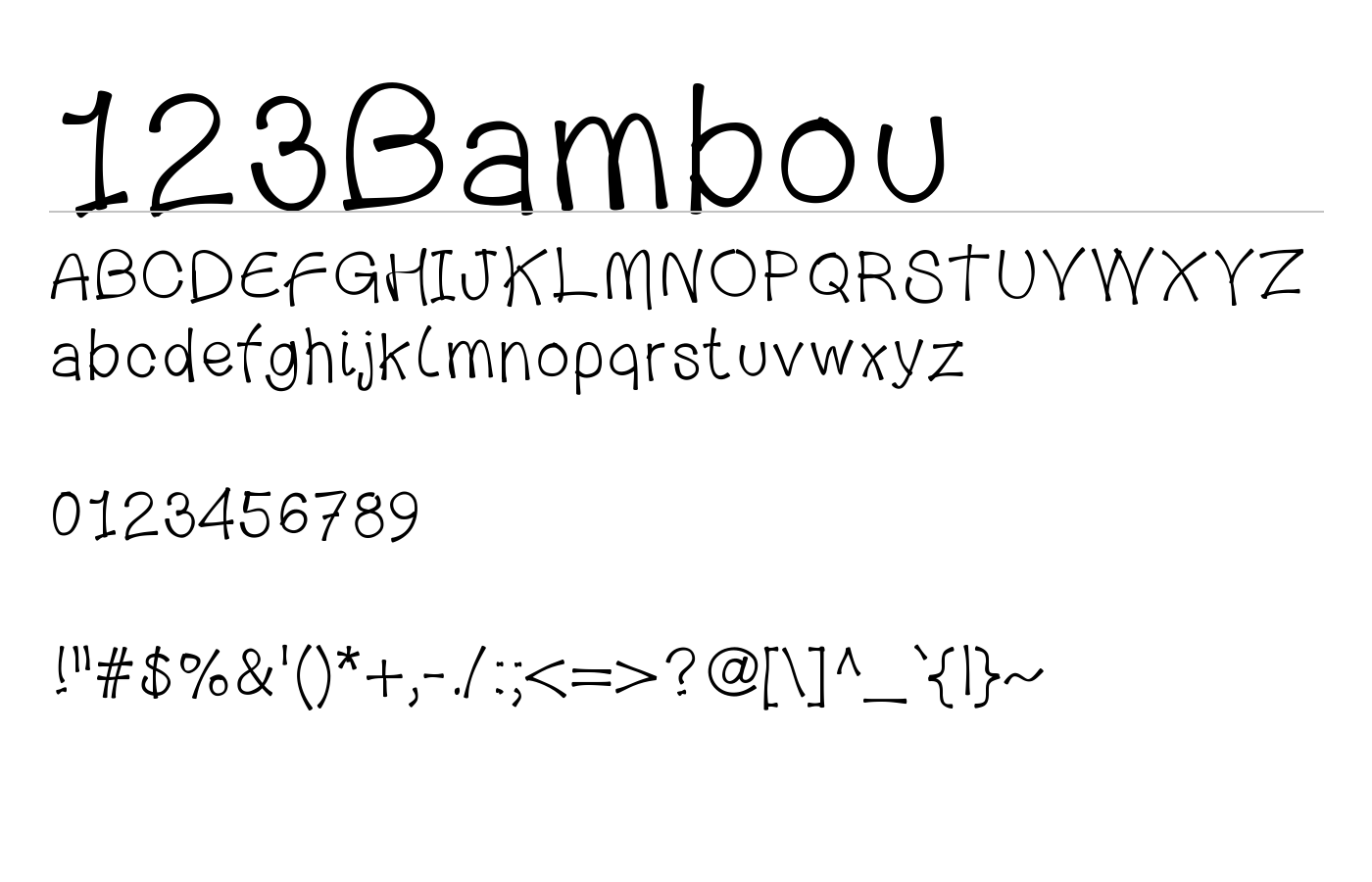
123Bambou is a playful, handwritten sans serif font characterized by its tall, narrow letterforms and irregular stroke widths, giving it a casual and quirky feel. The font features single-story lowercase letters and a slightly uneven baseline, which adds to its friendly and approachable personality, making it perfect for informal, creative projects like children’s books, casual branding, and fun headlines. Its light weight and airy spacing help maintain readability while preserving a handcrafted charm.
123Bambou Font
About 123Bambou Font